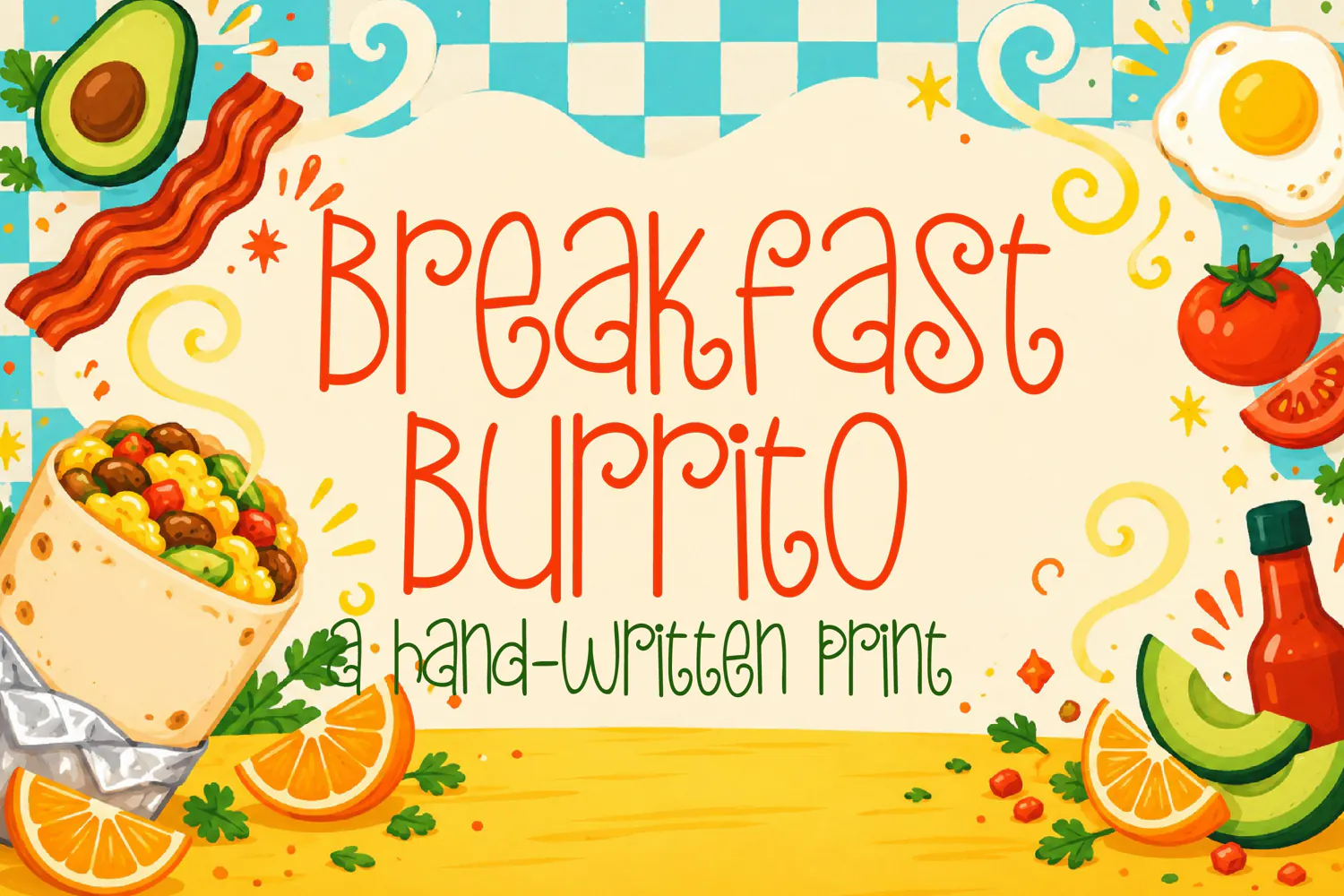
Breakfast Burrito Whimsical Handwritten Font
Breakfast Burrito is a tall, light handwritten print font with playful curls and varied letter shapes. It adds personality to recipe cards, café menus, food packaging, invitations, and cheerful everyday designs.